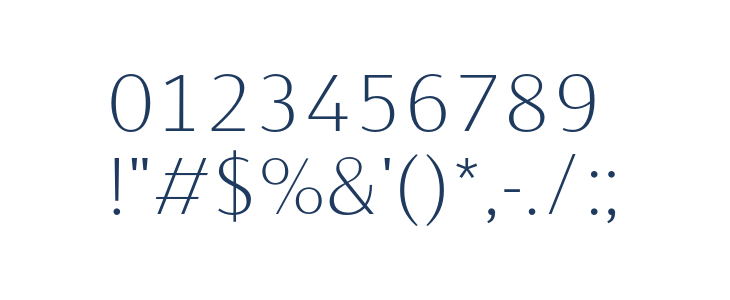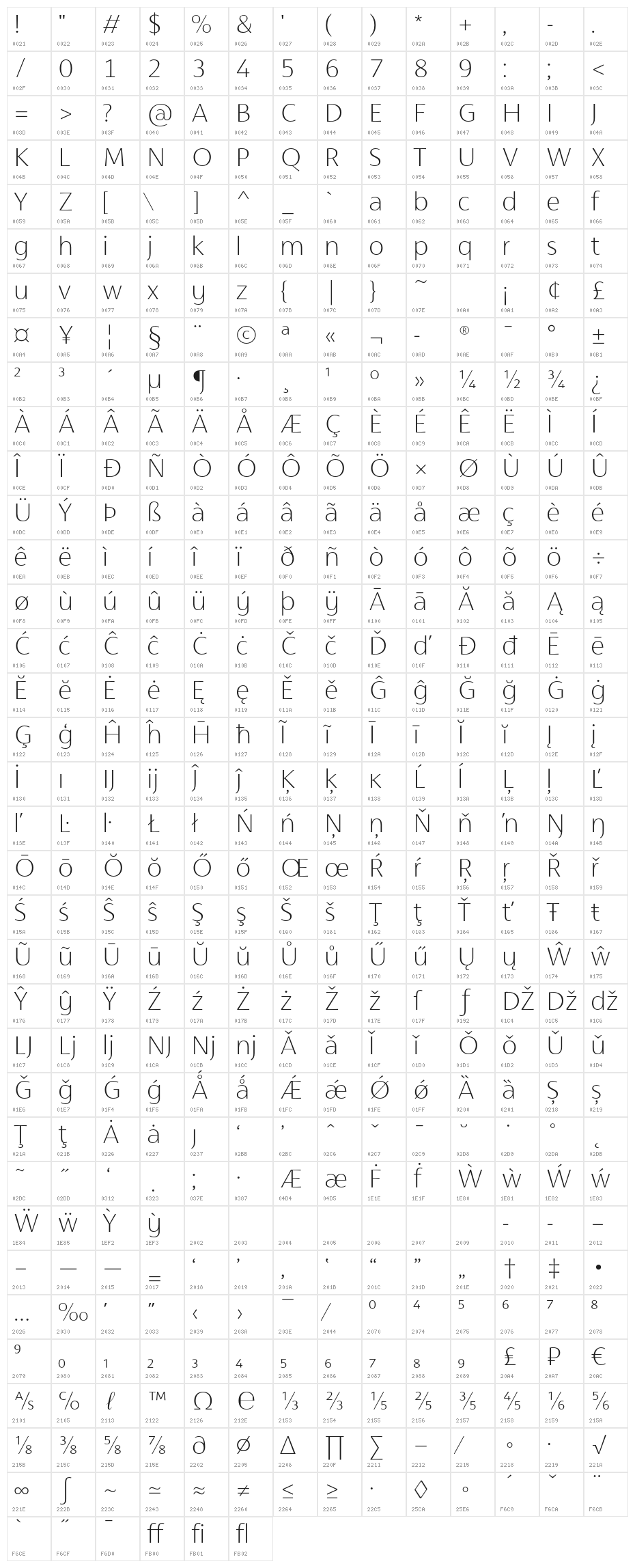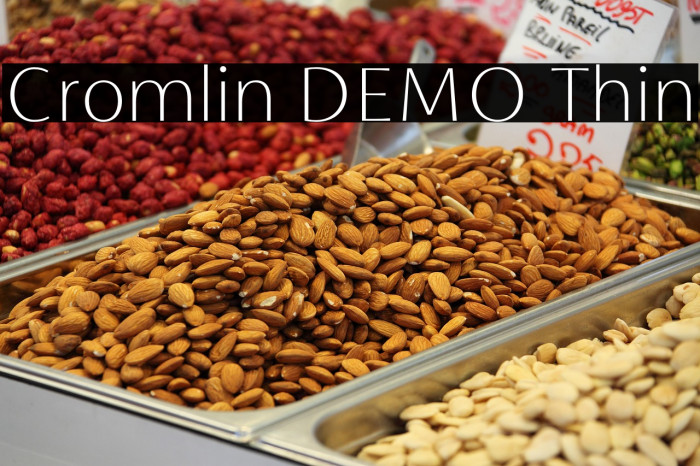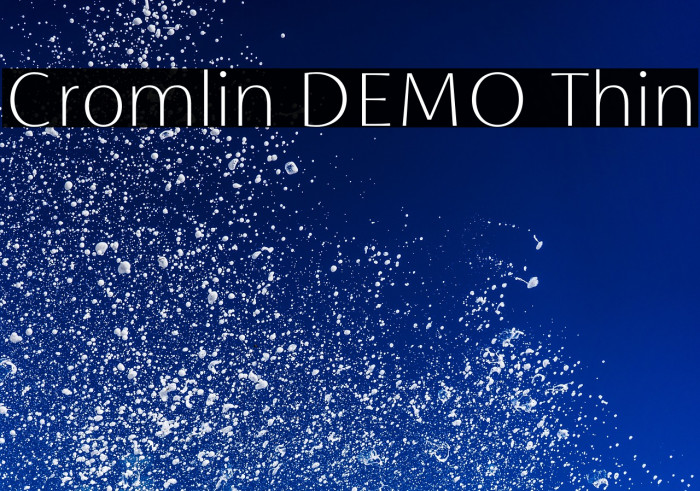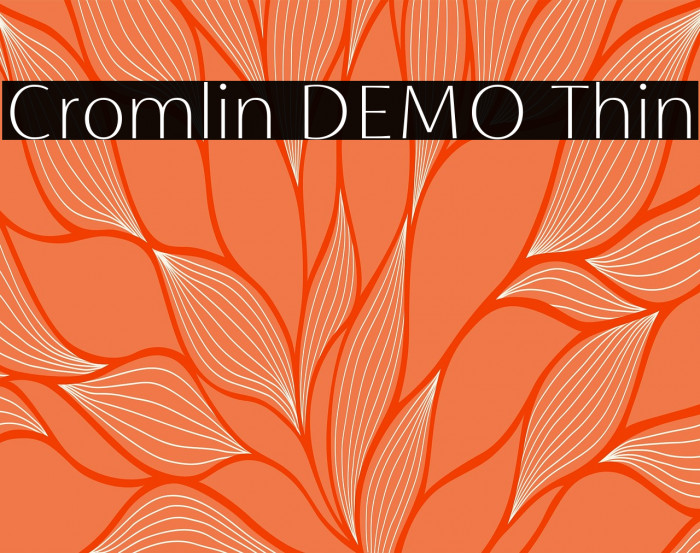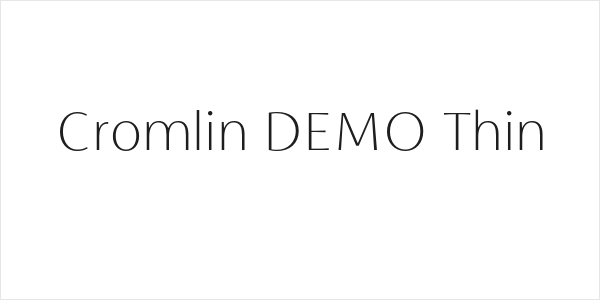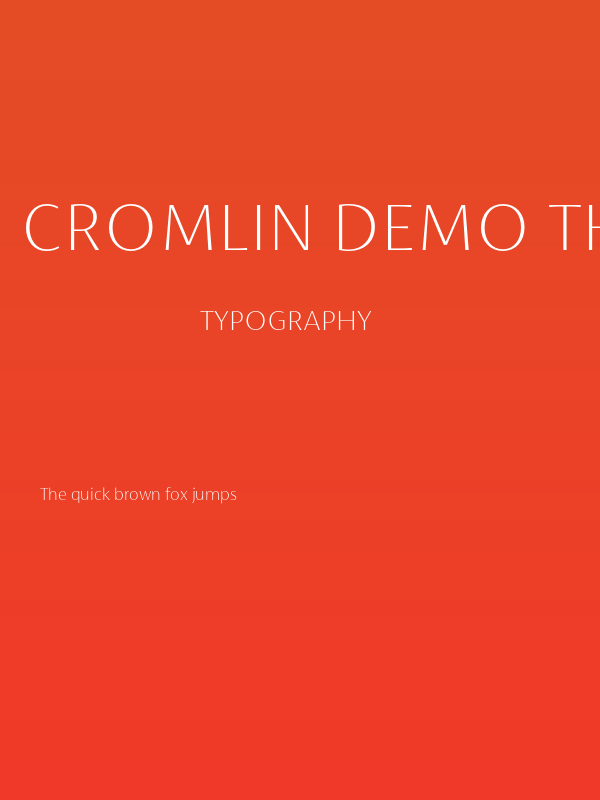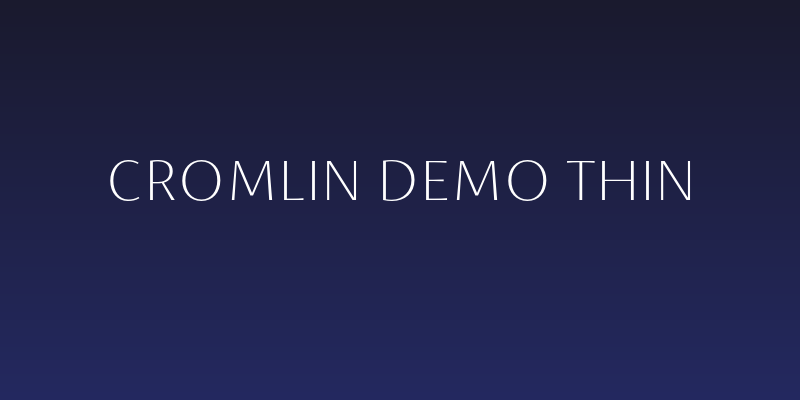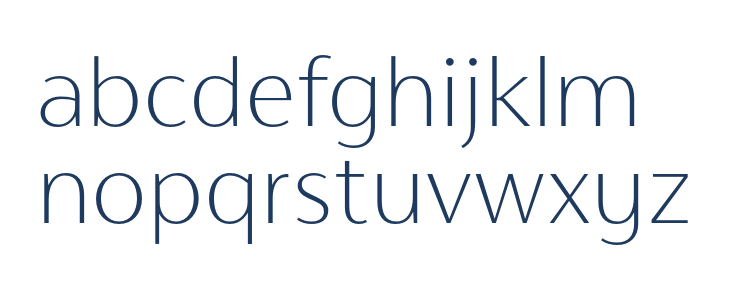
Cromlin DEMO Thin Font
Cromlin DEMO Thin Description
This font features a clean and modern sans-serif design with a thin weight, making it ideal for minimalist and contemporary projects. The characters are well-proportioned with a consistent stroke width, offering a sleek and elegant appearance. The uppercase and lowercase letters maintain a uniform height, contributing to a harmonious and balanced look. The numerals are clear and easy to read, while the special characters are distinct and well-integrated into the overall design. This font's simplicity and clarity make it versatile for various applications.
| Proposed Projects | Ideal for branding, web design, editorial layouts, and minimalist posters. |